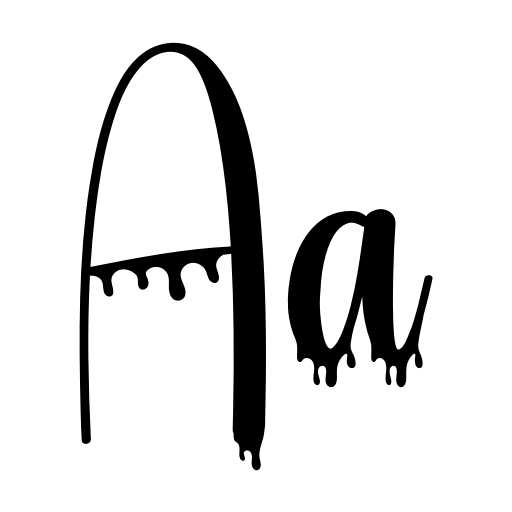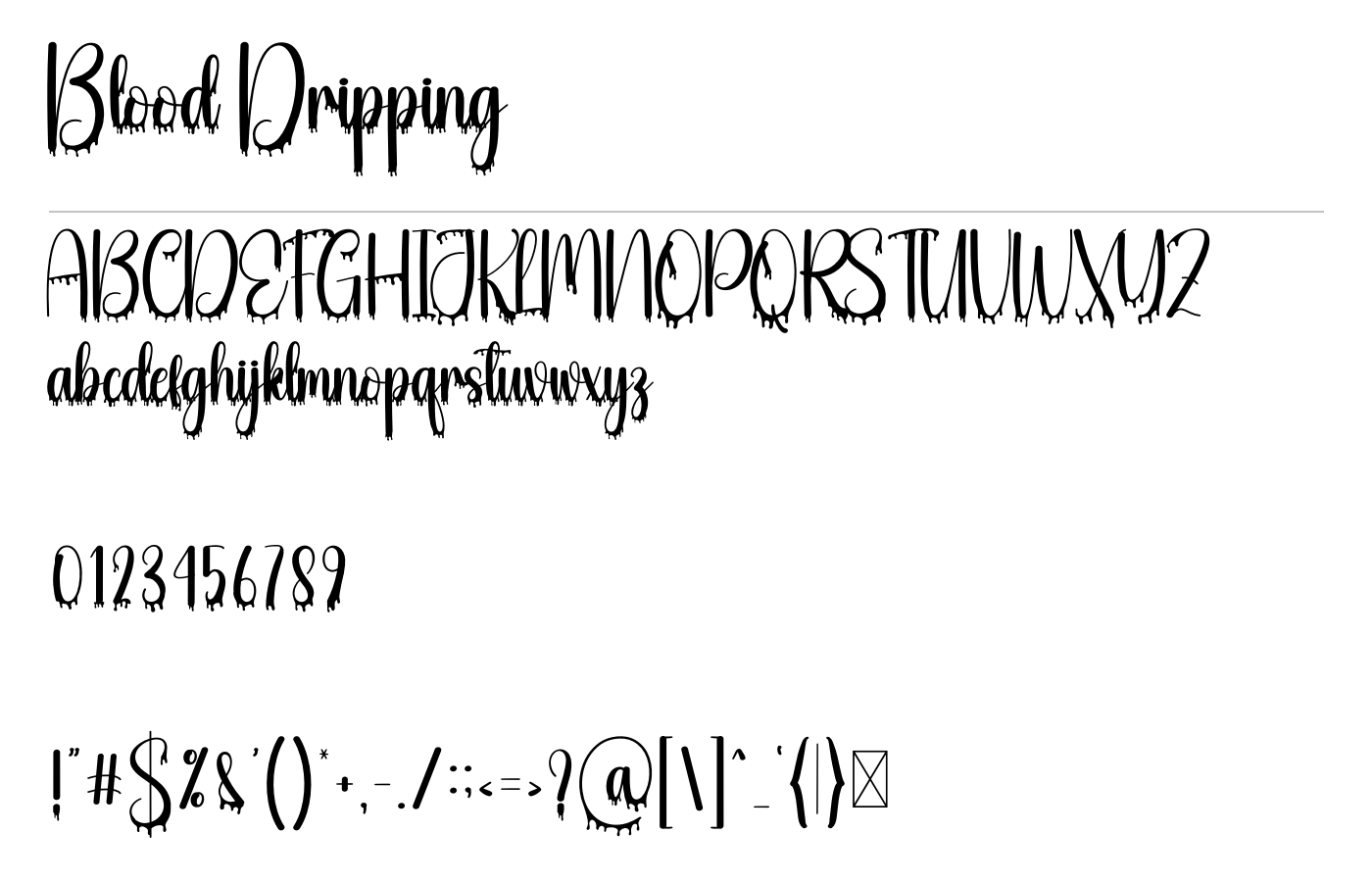
Blood Dripping Font is a playful and eerie script-style typeface that mimics the look of dripping liquid, ideal for horror-themed designs. With its narrow, tall letterforms accented by dripping edges and a casual handwritten feel, it creates a spooky, dramatic effect perfect for Halloween projects, posters, and eye-catching branding that wants to convey mystery or fright. This font works best in headlines or display settings where its unique style can stand out and set an unsettling mood.
Blood Dripping Font
About Blood Dripping Font